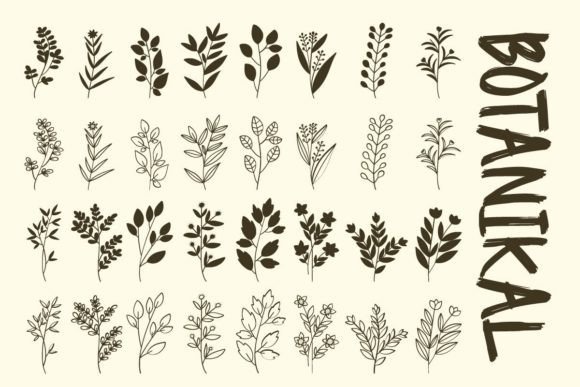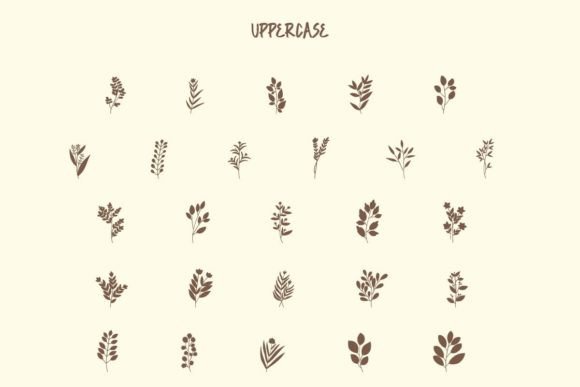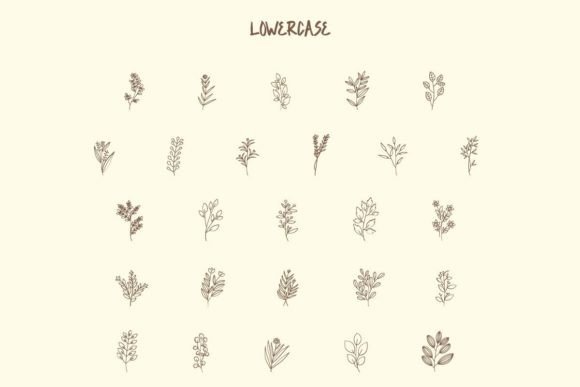
Botanikal Font
About Botanikal Font
Introducing Botanikal, a beautiful botanical-themed dingbats font that brings a touch of nature to your design projects. With its delicate floral elements, Botanikal adds a modern and elegant touch to any creative endeavor.
Whether you’re designing wedding invitations, product labels, business cards, or greeting cards, Botanikal offers a wide range of floral glyphs that will enhance your designs. The intricate details and graceful lines of the floral elements will captivate and inspire your audience.
Botanikal is perfect for creating invitations to nature-themed events, adding a botanical touch to your brand identity, or simply infusing your designs with the beauty of nature. You can use the floral glyphs as decorative elements, dividers, or even create intricate patterns and backgrounds.
The versatility of Botanikal allows you to explore various design possibilities. Mix and match the floral elements, combine them with typography, or use them as standalone elements to create stunning compositions. The font’s clean and modern design ensures that it works well with different design styles.
With Botanikal, you can bring a touch of nature and elegance to your design projects. Let the delicate floral elements inspire your creativity and add a modern and sophisticated feel to your creations. Whether you’re designing for personal or commercial purposes, Botanikal is sure to impress with its beauty and versatility.